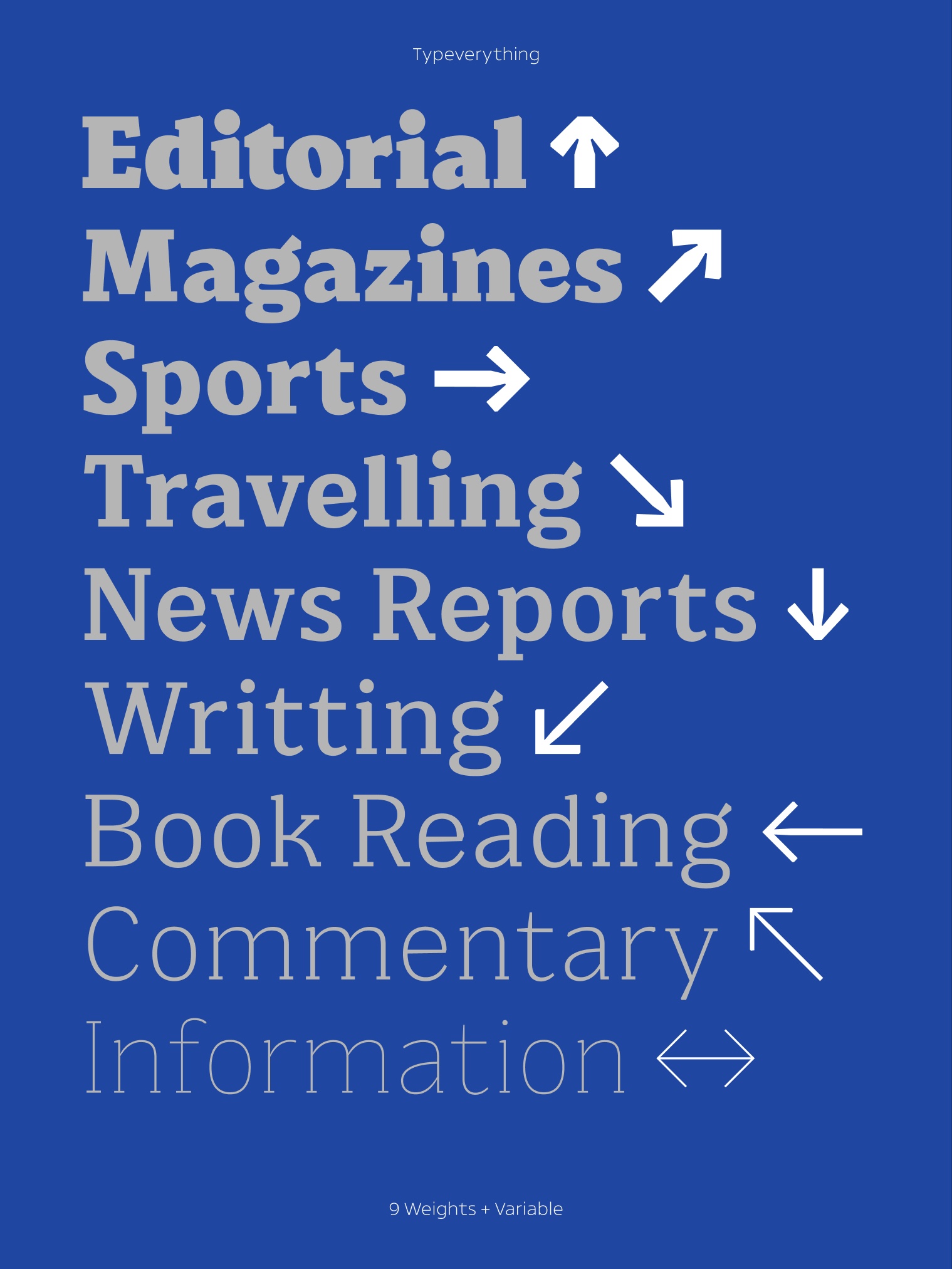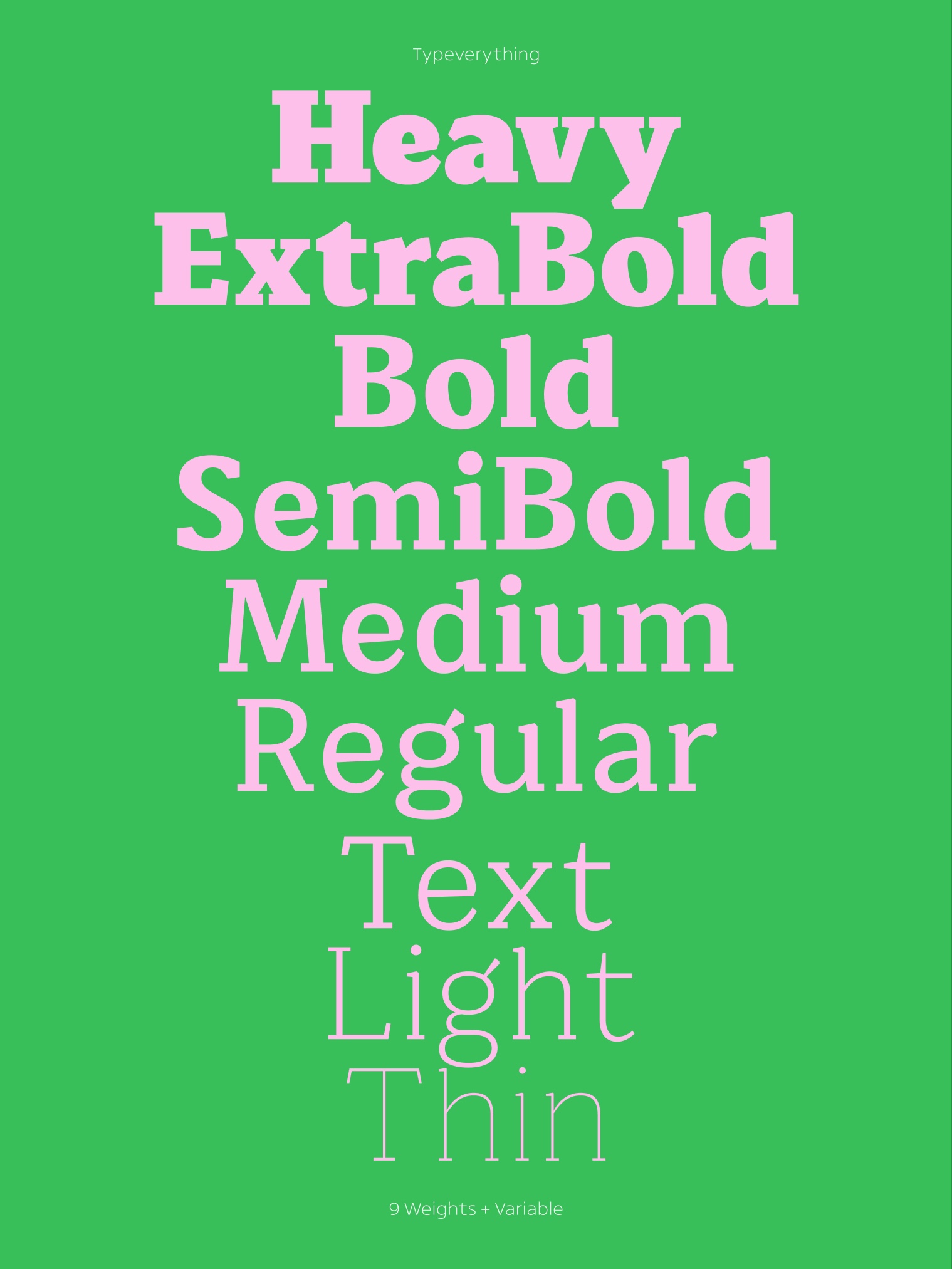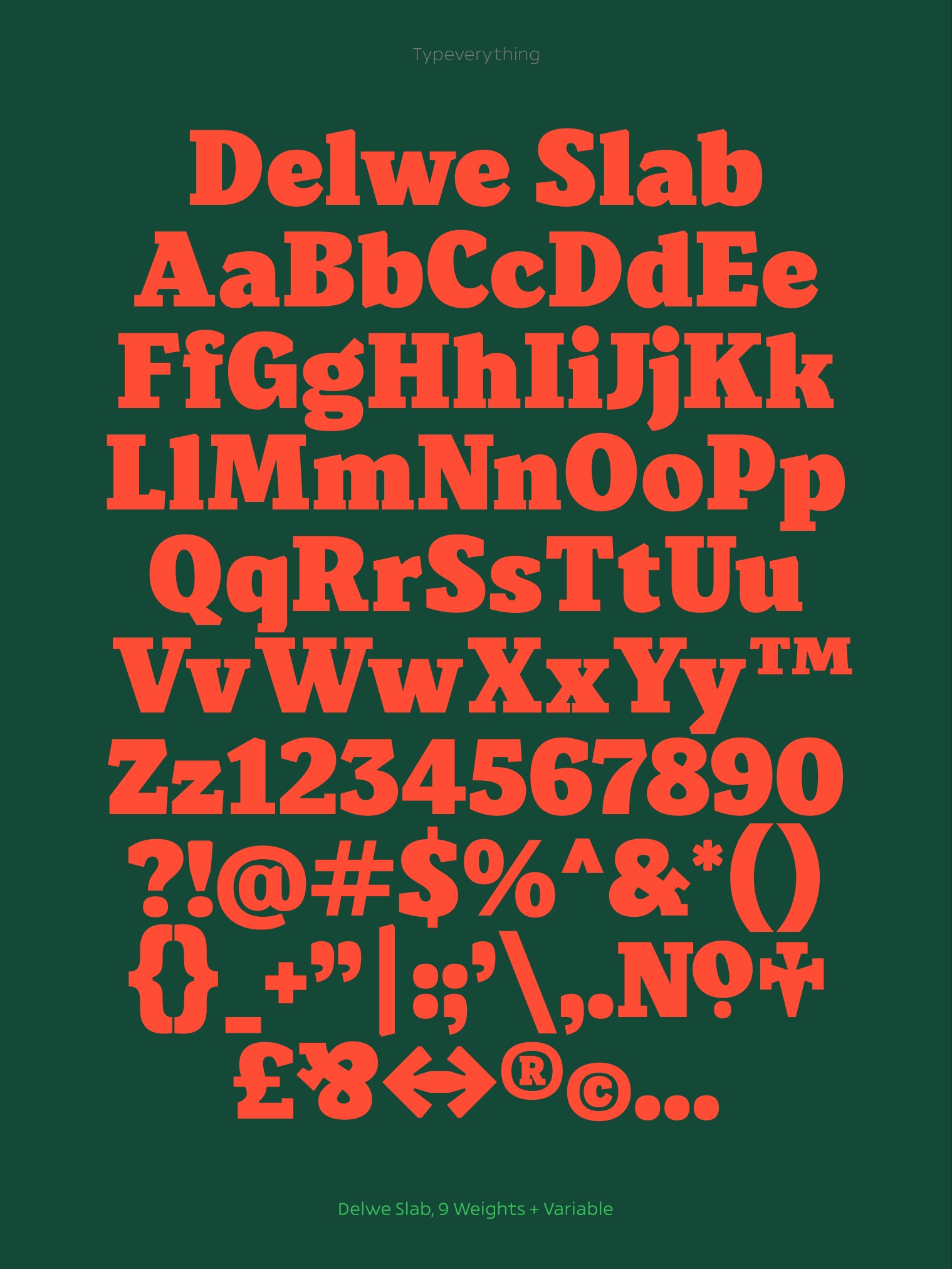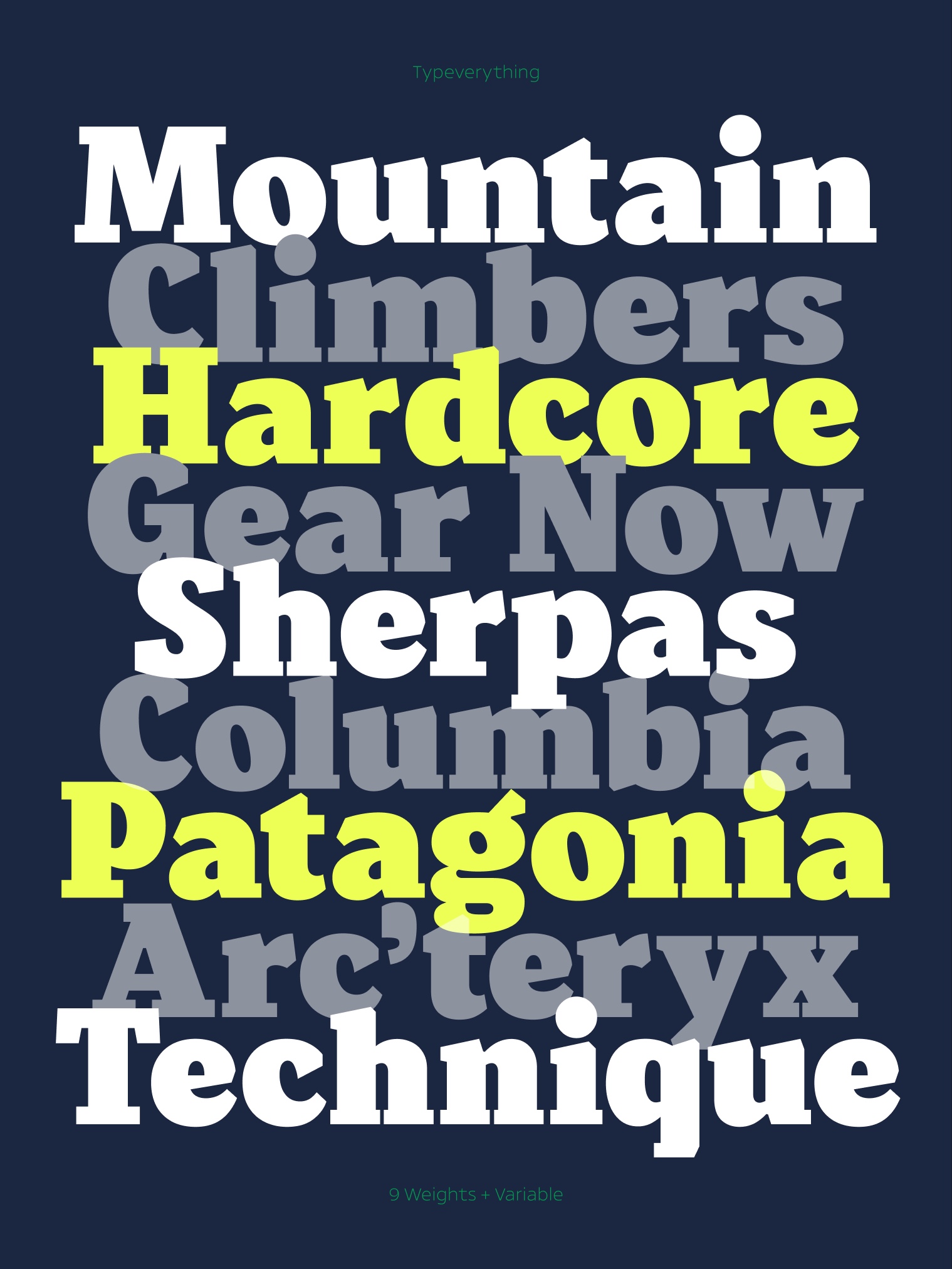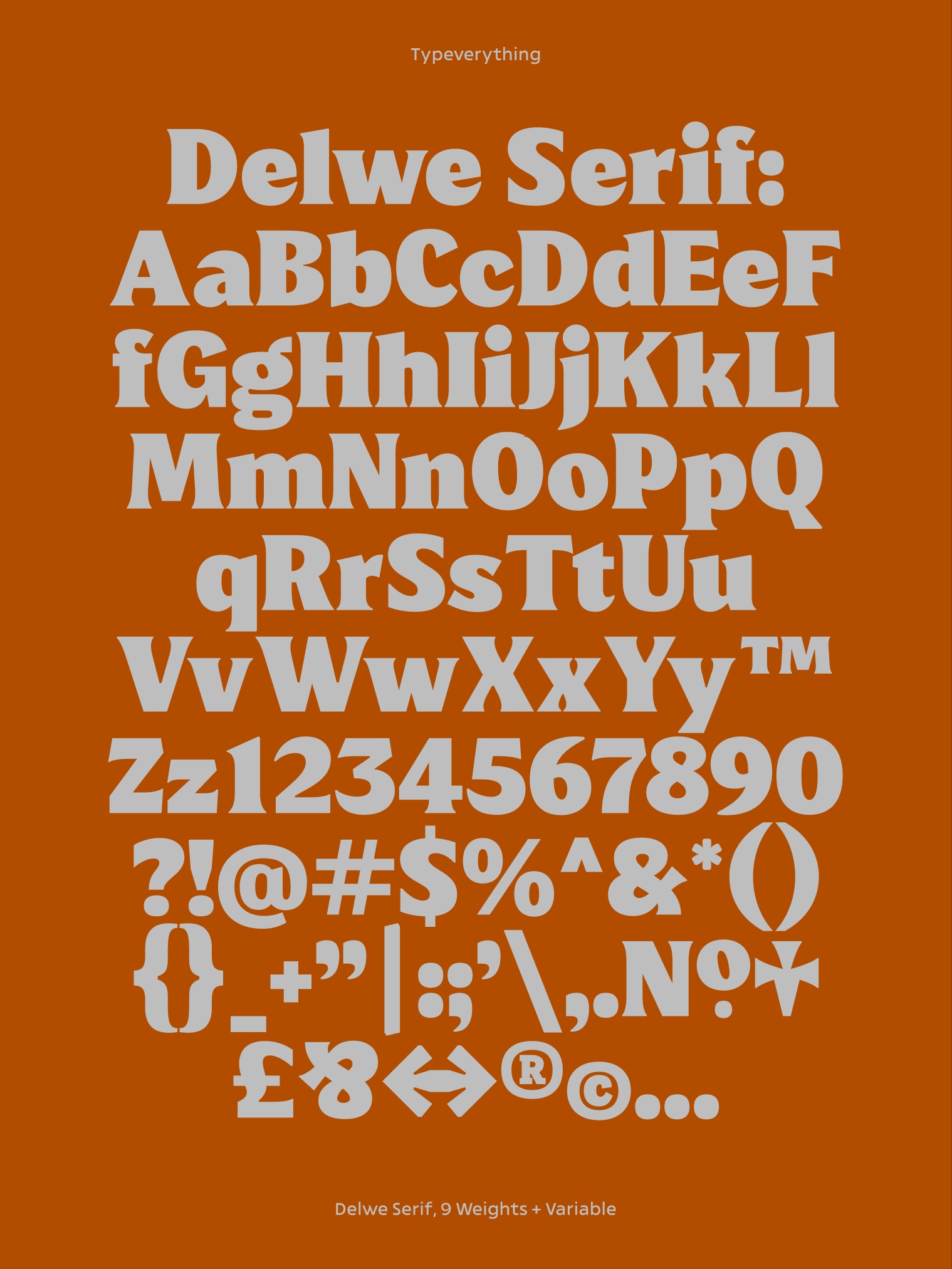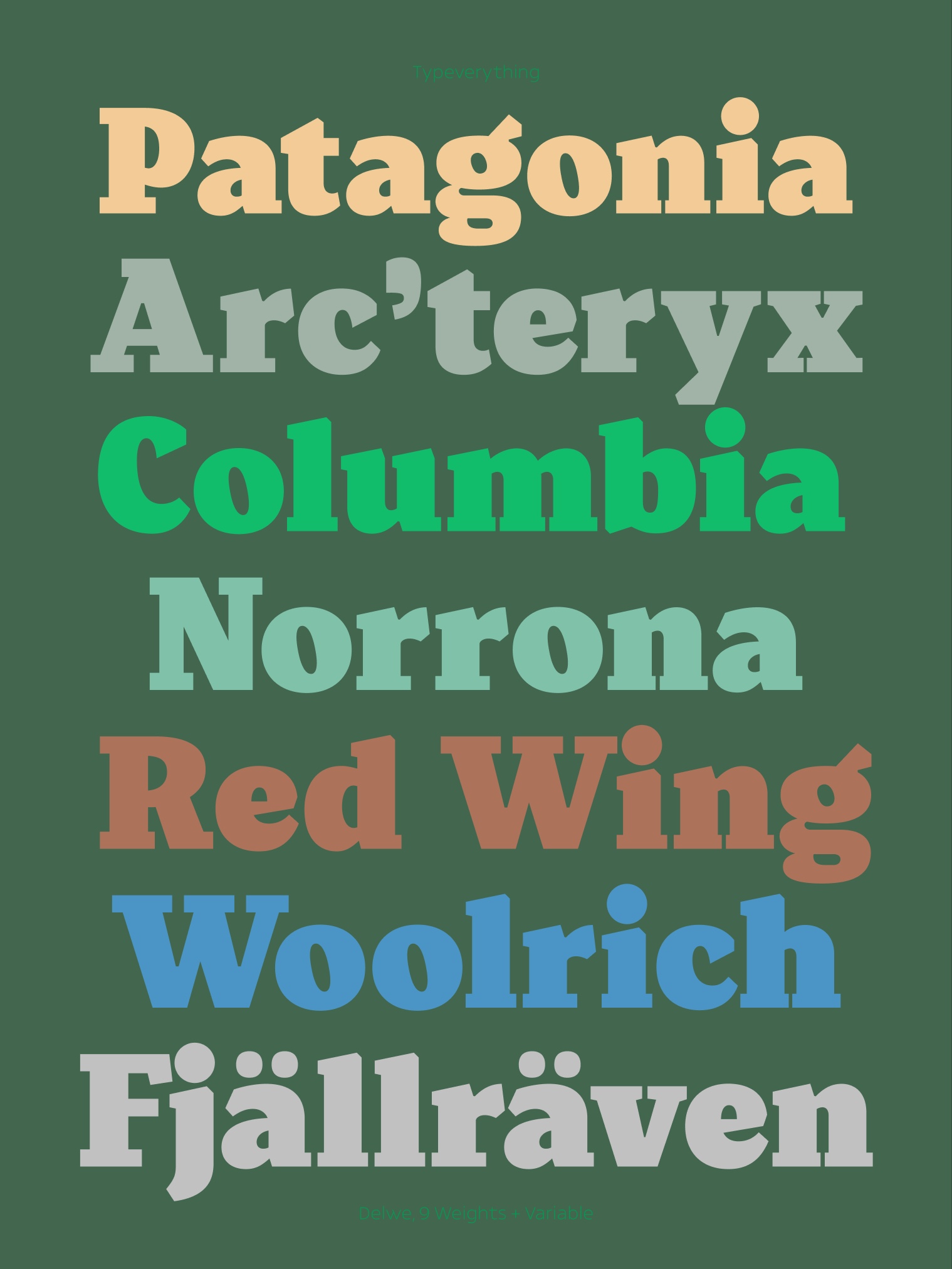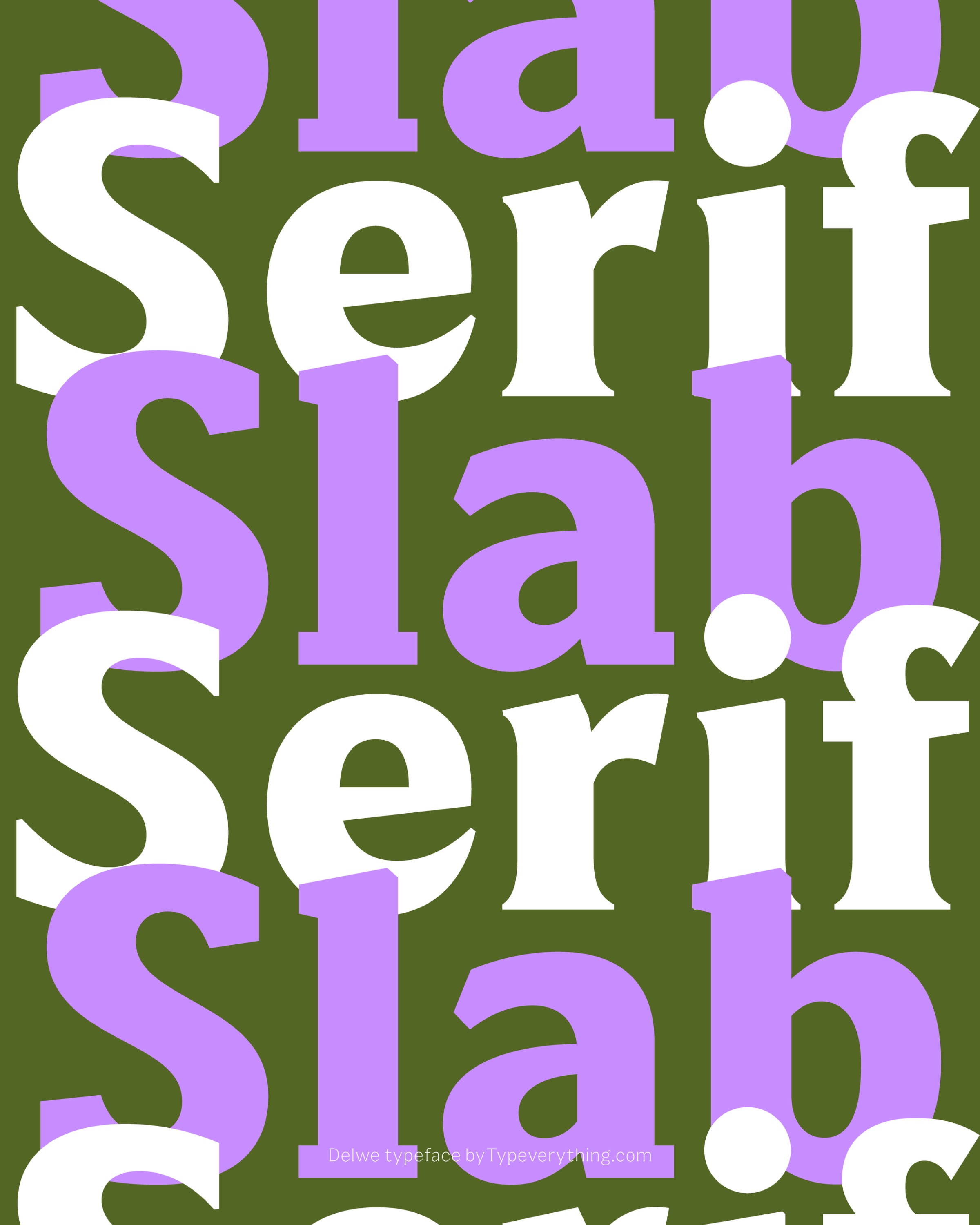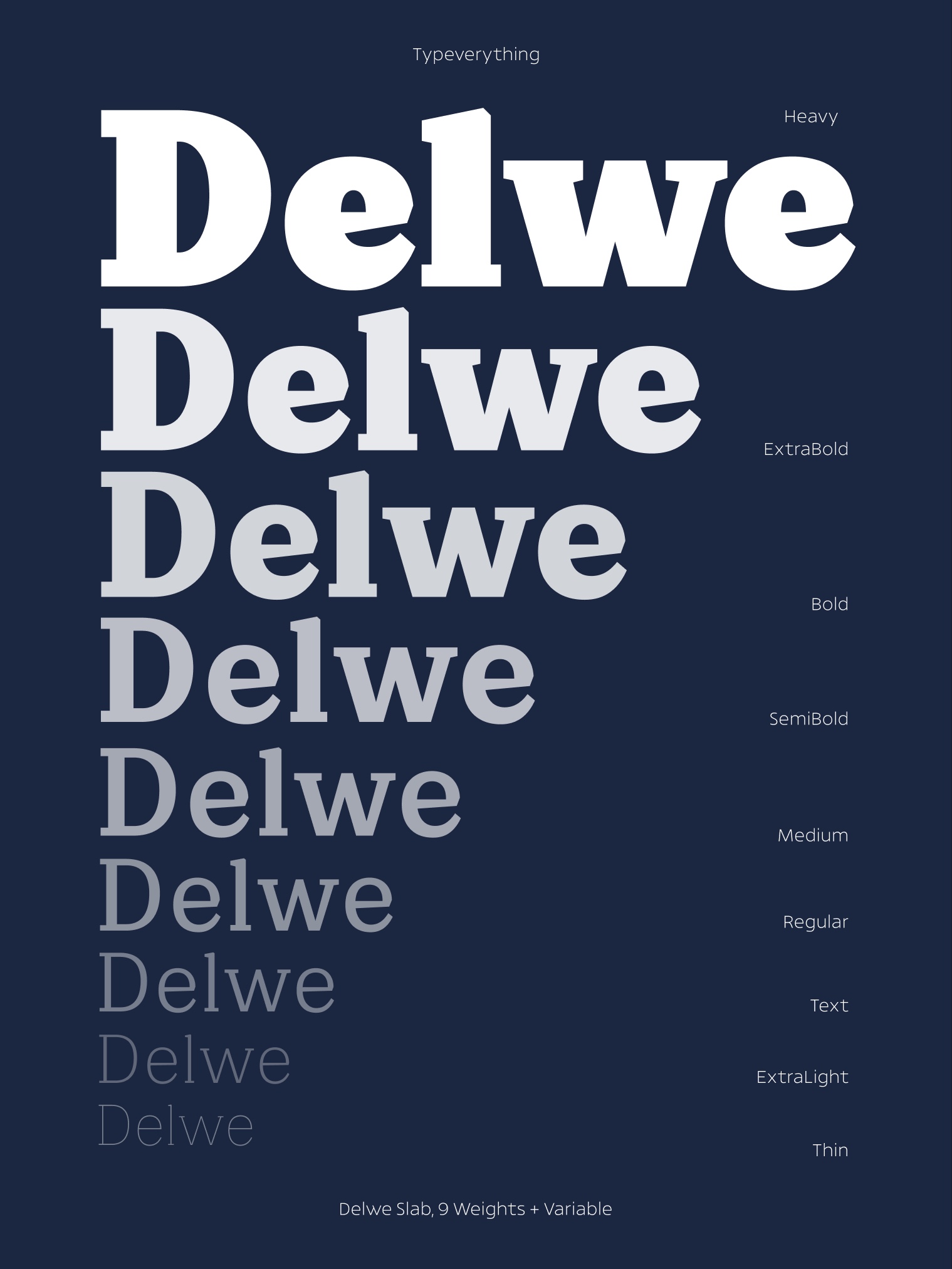
Delwe Typeface by Typeverything.com
Delwe is a modern slab & serif developed as a refined take on Letraset’s Belwe, hence the name. While it echoes the original’s spirit, Delwe removes the Venetian details in favor of a more streamlined, functional design, optimized for clarity, versatility, and digital use. Its structure is clean and robust, with balanced proportions that make it reliable for both display and extended text. Built with screen performance and brand expression in mind, Delwe balances warmth with structure. Its friendly tone, generous spacing, and subtle personality make it an ideal choice for headlines, editorial content, and confident branding. For the Slab family a set of stylistic alternates nods to its historical origins, giving designers extra flexibility when crafting distinctive visual identities or editorial layouts. The typeface includes 2 families with 9 weights each, from Thin to Heavy, plus a variable fonts for fluid responsiveness across media.